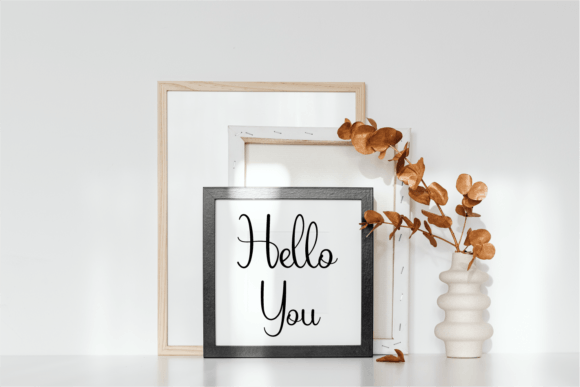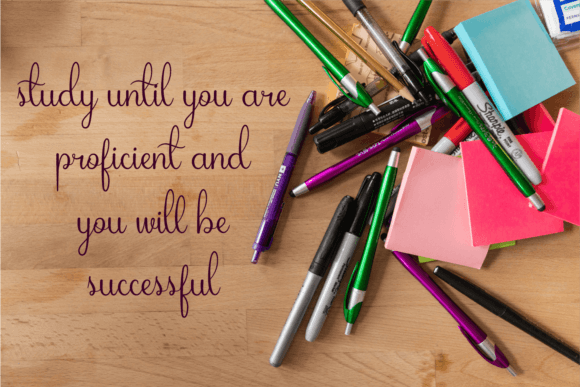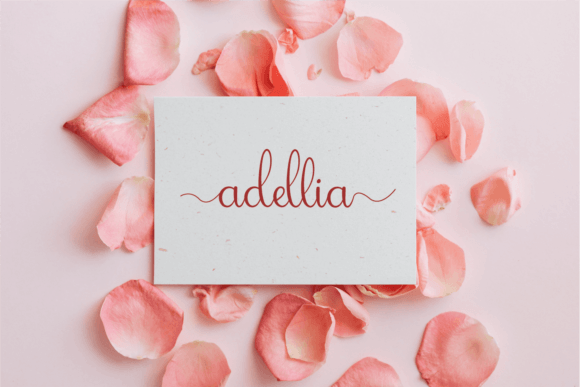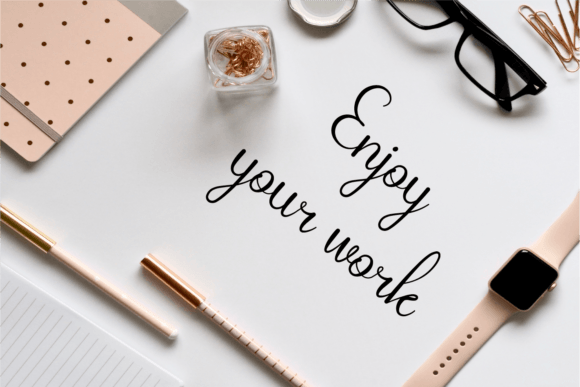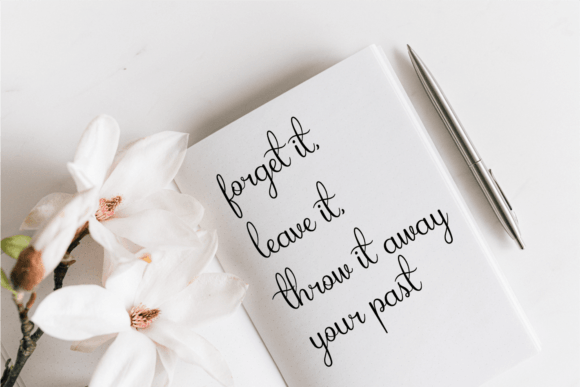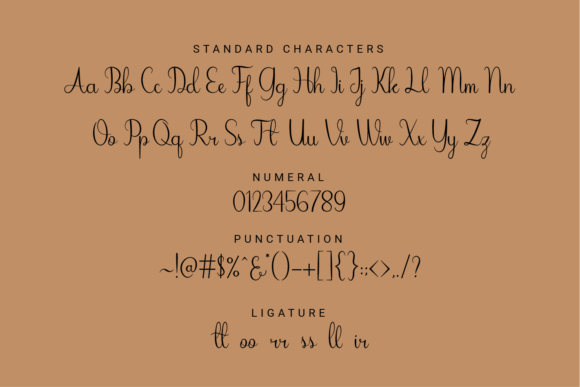
As you sit at your desk, staring at a blank sheet of paper or a blank screen, the blank canvas stares back at you. You know exactly what you want to create – a beautiful, heartfelt greeting card, a captivating headline that will grab attention, or a romantic invitation that will set the tone for a special occasion. But, you’re stuck. The words won’t flow, and the design just isn’t coming together. That’s where the Adellia Font comes in – a beautiful, enchanting handwritten font that will add a touch of elegance and romance to your next project.
The Adellia Font is a versatile script font that has a wide range of applications, from greeting cards to headlines, and everything in between. With its PUA encoding, you’ll have access to all the amazing glyphs and ligatures, making it a valuable tool for designers looking to add a personal touch to their work.
Key Features of Adellia Font
- Unique Characteristics: Adellia Font features a unique blend of elegance and sophistication, with intricate details and subtle flourishes.
- Font Style: Adellia Font is available in a range of styles, including Regular, Italic, Bold, and Bold Italic, allowing for a high degree of flexibility in design and layout.
Adellia Font Review
I recently had the chance to work with the Adellia font, and I must say it’s a mixed bag. While it has some great qualities, it also has some limitations that might make it less suitable for certain projects.
- ✨ Elegant and refined appearance: Adellia has a classic feel that makes it perfect for luxury or high-end brands.
- ✨ Wide range of weights: With 12 different weights to choose from, you can easily find the right style to match your design needs.
- ✨ Good legibility: The font is clear and easy to read, even at small sizes.
- ⚠️ Limited font pairings: Adellia can be a bit too ornate to pair with more modern fonts, so you might find yourself limited in your design options.
- ⚠️ Not suitable for body text: While the font looks great at display sizes, it can be a bit too ornate for larger blocks of text, making it harder to read.
- ⚠️ Not a lot of linguistic support: If you need to work with languages that require a lot of diacritics or special characters, you might find Adellia lacking.
Overall, I think Adellia is a solid choice for projects that require a touch of elegance and refinement. However, it’s not the best option for more modern or minimalist designs, or for projects that require a lot of linguistic flexibility.
Use the Adellia Font in headings and titles to create a sense of hierarchy and emphasis in your design. It’s also suitable for body text in documents and presentations where a clean and modern look is desired. To get the most out of the font, experiment with different font sizes and styles to create visual interest.
Alternatives to Adellia Font for Designers
Playfair Display is a luxurious, high-end serif font that is perfect for use in headlines, titles, and other prominent text elements. It is ideal for creating a sophisticated and elegant look in designs. Playfair Display has a more ornate and classical feel compared to Adellia Font, which has a more modern and minimalist aesthetic.
When to use: Luxury branding, high-end product designs, and sophisticated advertising materials.
Great Vibes is a modern, elegant script font that is perfect for use in creative, artistic, and expressive designs. It has a more fluid and dynamic feel compared to Adellia Font, which has a more rigid and geometric structure. Great Vibes is ideal for creating a unique and eye-catching look in designs.